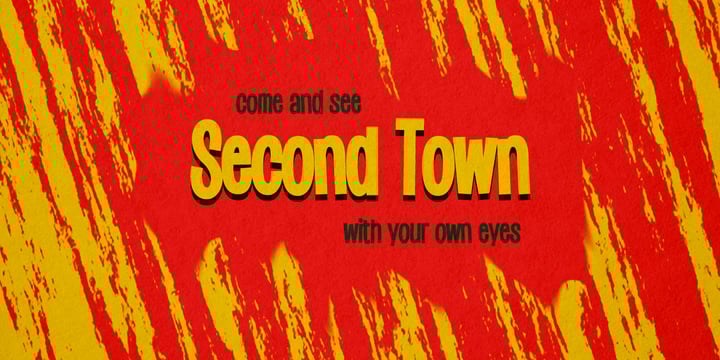
About Saker Sans Font Family
Saker Sans is a light-hearted sans-serif typeface. Designed by Måns Grebäck during 2016 and 2017, its comical expression works great in happy contexts. It comes as a family of five weights: Saker Sans Thin, Saker Sans Light, Saker Sans Medium, Saker Sans Bold and Saker Sans Black. Due to the large number of glyphs, the font supports a wide range of languages.
Designers: Måns Grebäck